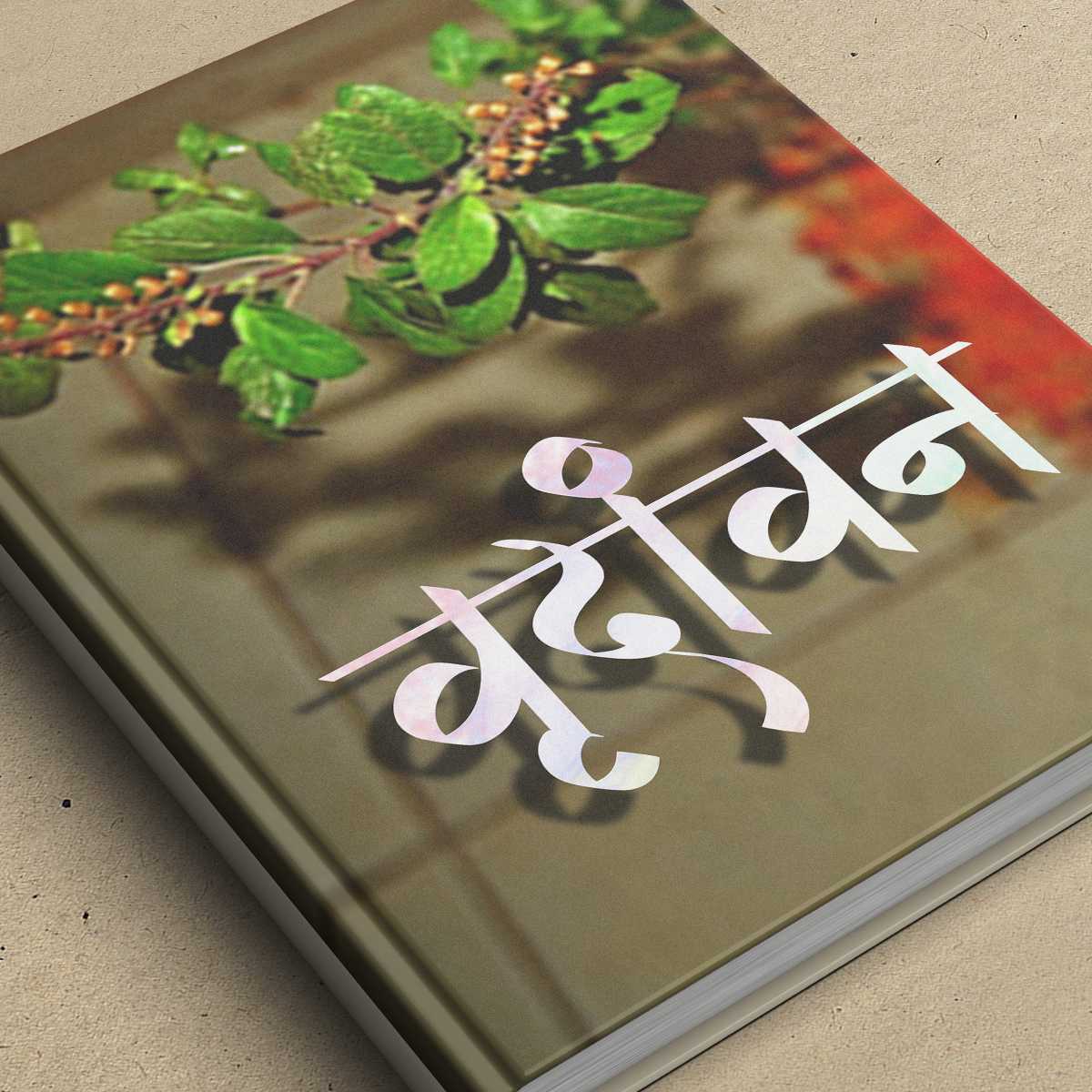
AMS Handwriting 4
Indulge in the beauty of AMS Handwriting 4, a Hindi and Marathi calligraphy font that captures the essence of free-flowing creativity. With its unique and organic letterforms, this font adds a touch of artistic charm to your designs.
About AMS Handwriting 4 Font
Indulge in the beauty of AMS Handwriting 4, a Hindi and Marathi calligraphy font that captures the essence of free-flowing creativity. With its unique and organic letterforms, this font adds a touch of artistic charm to your designs. This calligraphy font combines elegance with functionality, making it perfect for various design applications.
AMS Handwriting 4 is a professionally crafted calligraphy typeface that brings clarity and style to your projects. Designed with attention to detail, it supports hindi and marathi characters flawlessly.
Whether you're working on wedding-materials, logos, posters, or other creative projects, AMS Handwriting 4 delivers consistent performance across both digital and print media. This carefully designed typeface ensures readability and visual appeal in all your design work.
About AMS Handwriting 4 Typography Style
AMS Handwriting 4 is a professionally crafted calligraphy font that exemplifies modern Hindi typography design. This free font is perfect for designers seeking professional branding and logo design projects.
Available in 1 weight and supporting hindi, marathi scripts, AMS Handwriting 4 offers exceptional versatility for both digital and print media. Whether you're working on wedding-materials, logos, posters, this carefully designed typeface ensures consistent quality and professional results across all your typography projects.